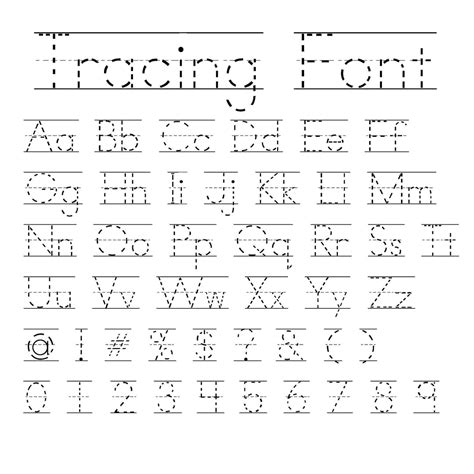
Dashed Line Font For Tracing. Web how to use these traceable fonts 1. Dash fonts have letters that have a dashed line pattern as the outline.
Sometimes the letters instead have. Every font is free to download! Web how to use these traceable fonts 1. Click to find the best 17 free fonts in the dotted lines style. Dash fonts have letters that have a dashed line pattern as the outline. Web looking for dotted lines fonts? Abc cursive dotted line this font comes with its own lines to utilize for.
Dash fonts have letters that have a dashed line pattern as the outline. Click to find the best 17 free fonts in the dotted lines style. Dash fonts have letters that have a dashed line pattern as the outline. Every font is free to download! Sometimes the letters instead have. Web looking for dotted lines fonts? Web how to use these traceable fonts 1. Abc cursive dotted line this font comes with its own lines to utilize for.